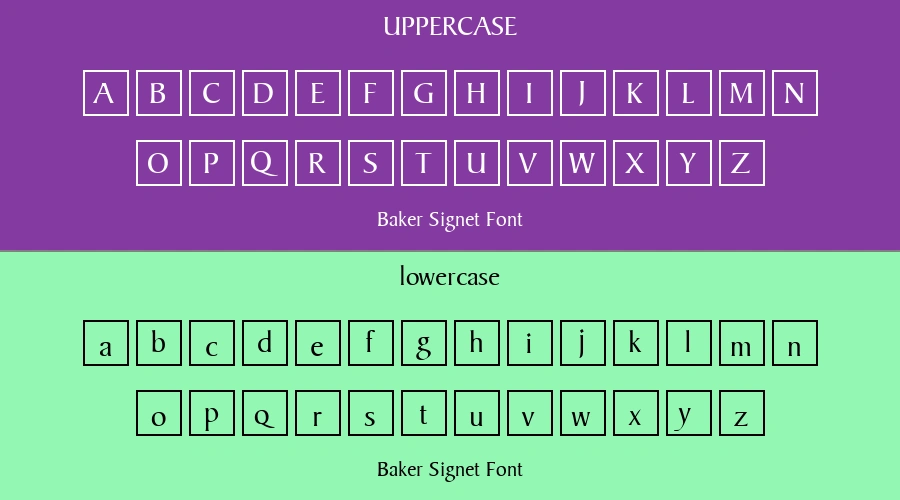
About Baker Signet Font
Baker Signet Font represents a sophisticated approach to type design, balancing ornamental caps with professional finish. Perfect for literary works, this font family showcases impressive impact and literary appropriateness throughout its character set. Designers appreciate its versatility and reliability.
Designers will appreciate nuanced touches including playful elements and technical characters, adding sophistication to any project. These features become apparent in heritage publications, where kerning accuracy matters most. The careful treatment of spur details and technical authority ensures optimal performance.